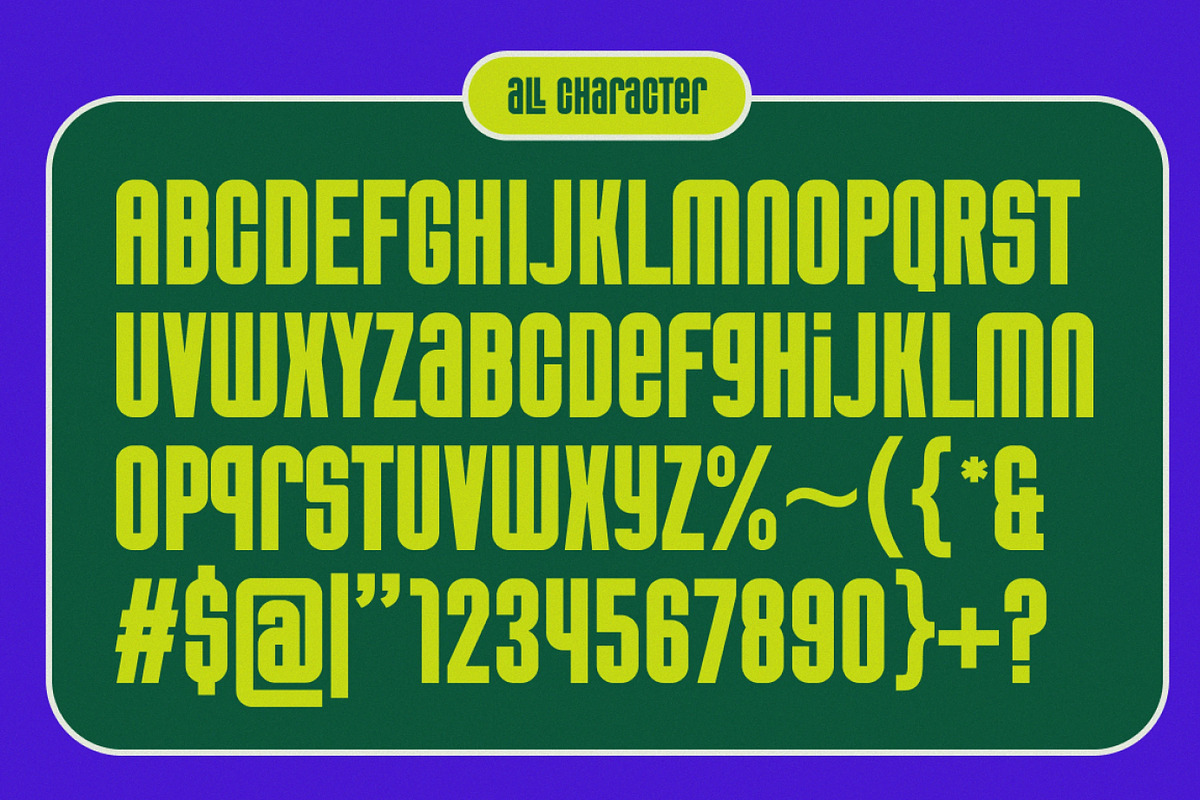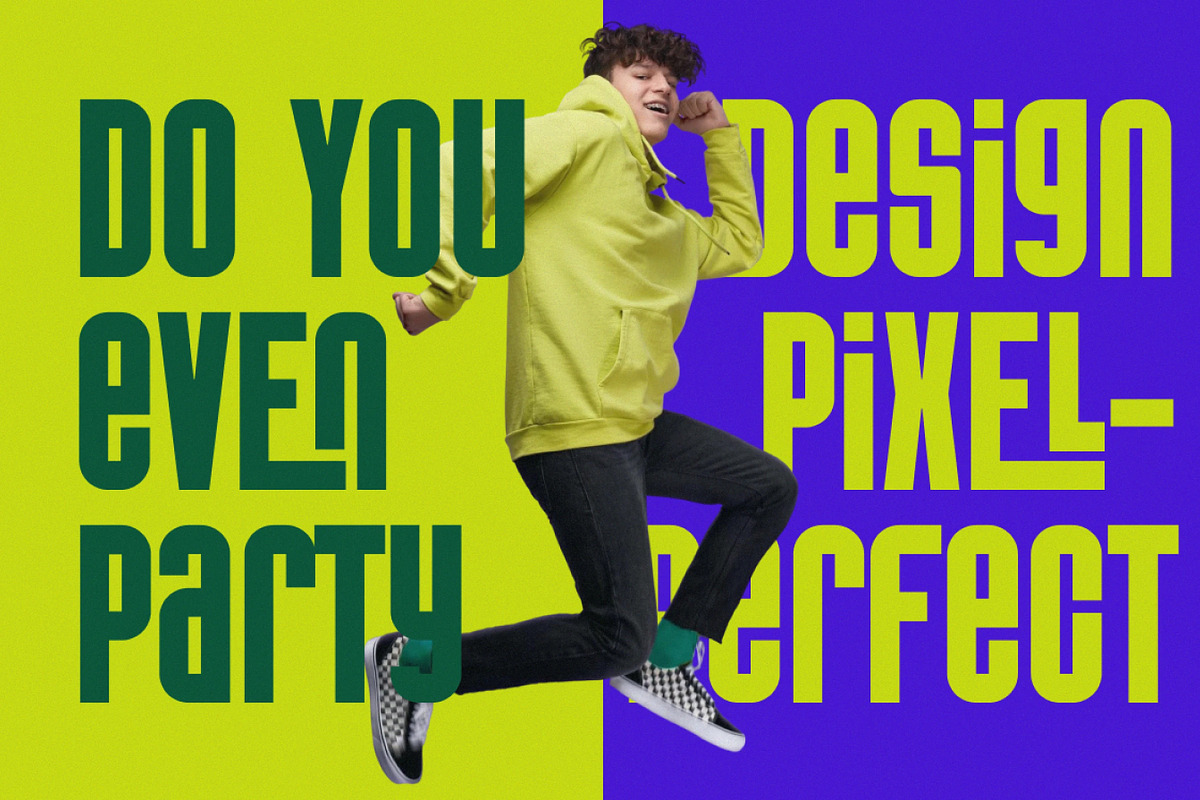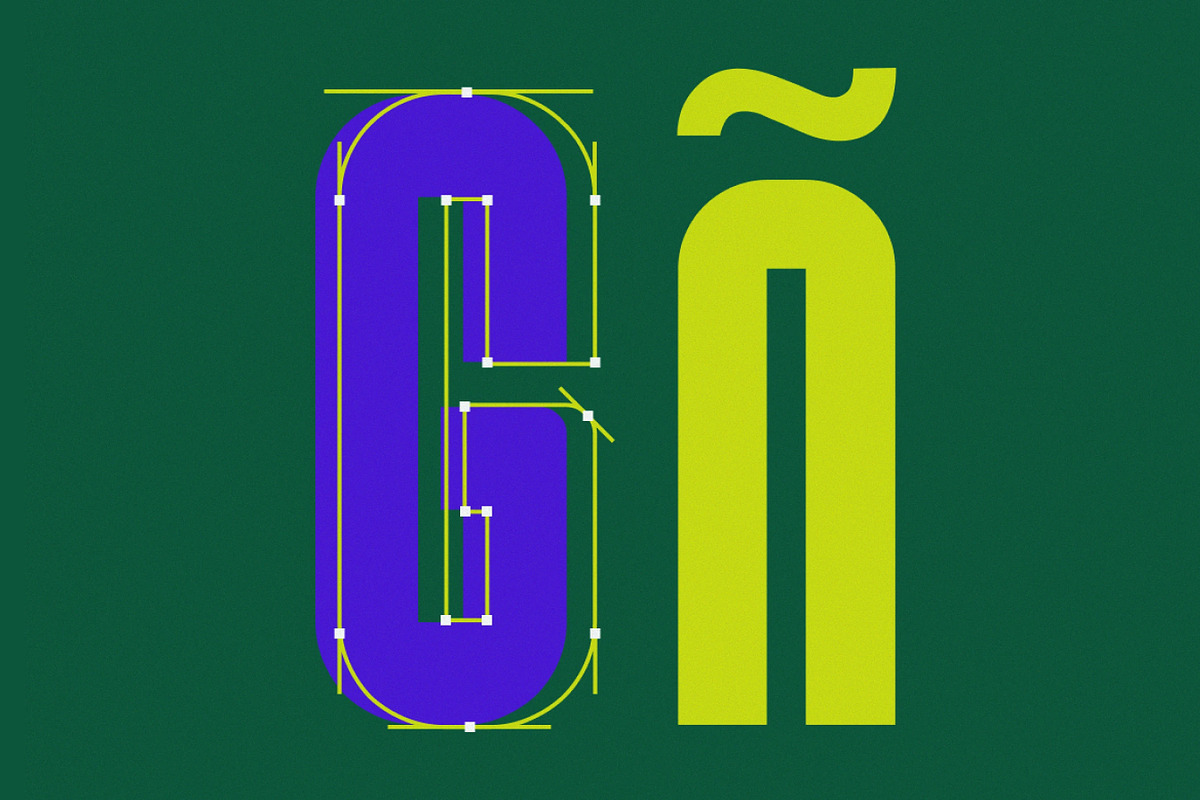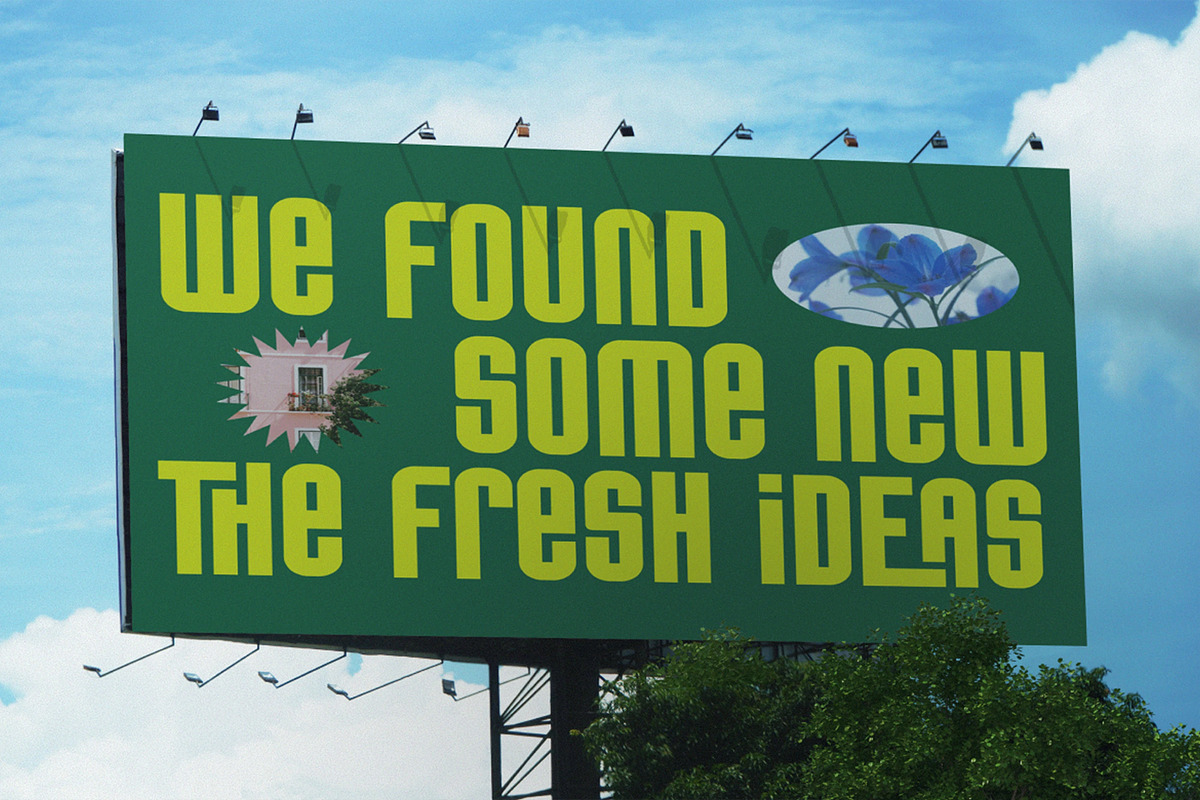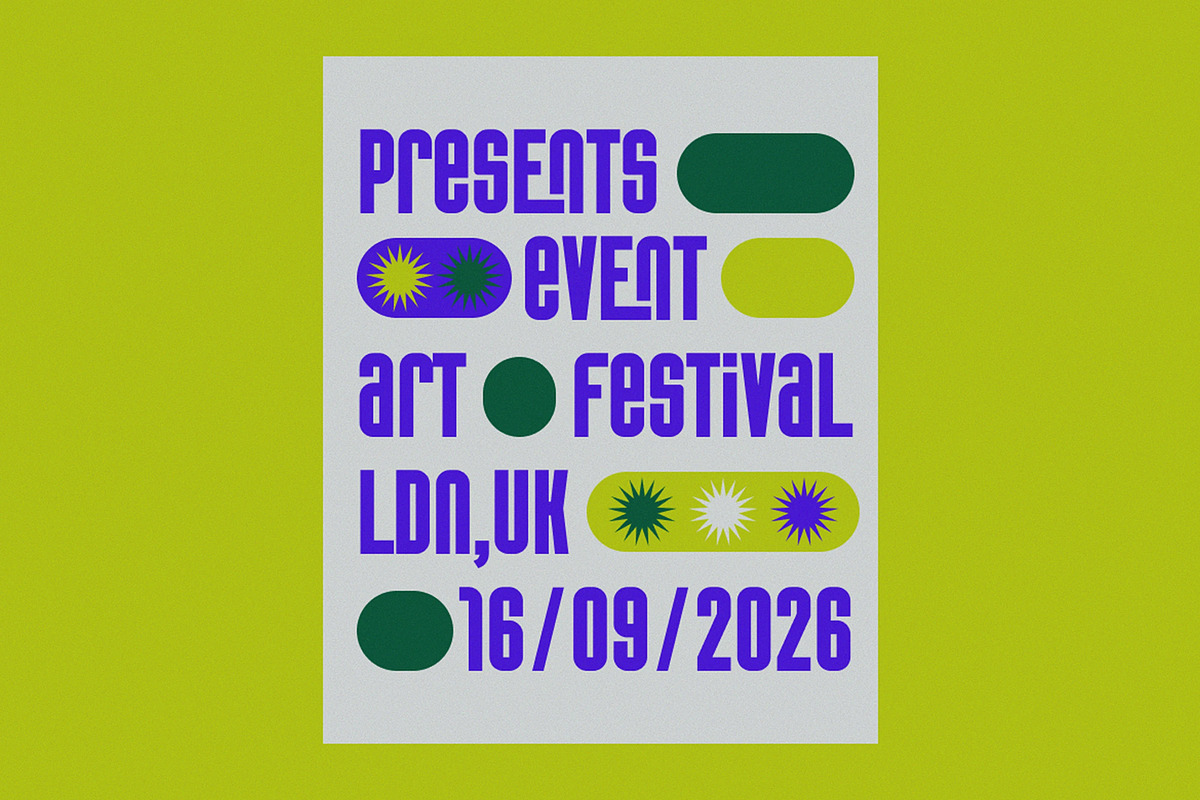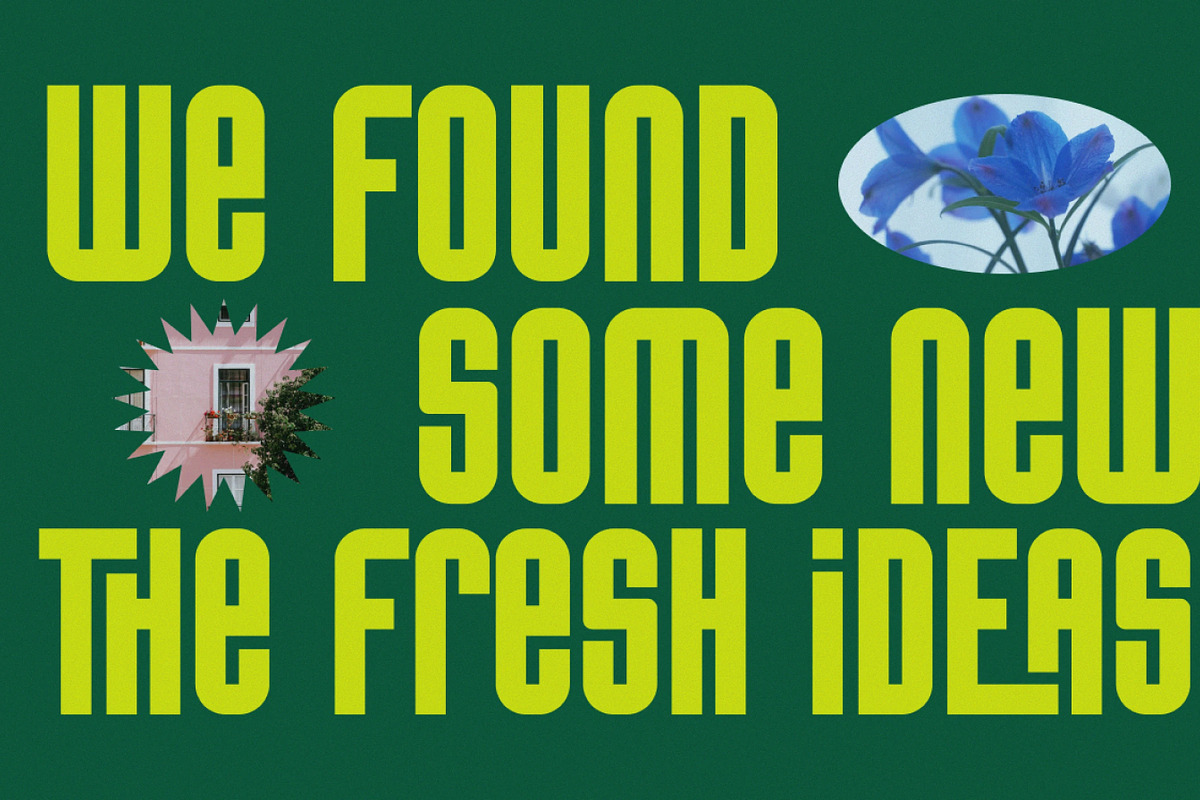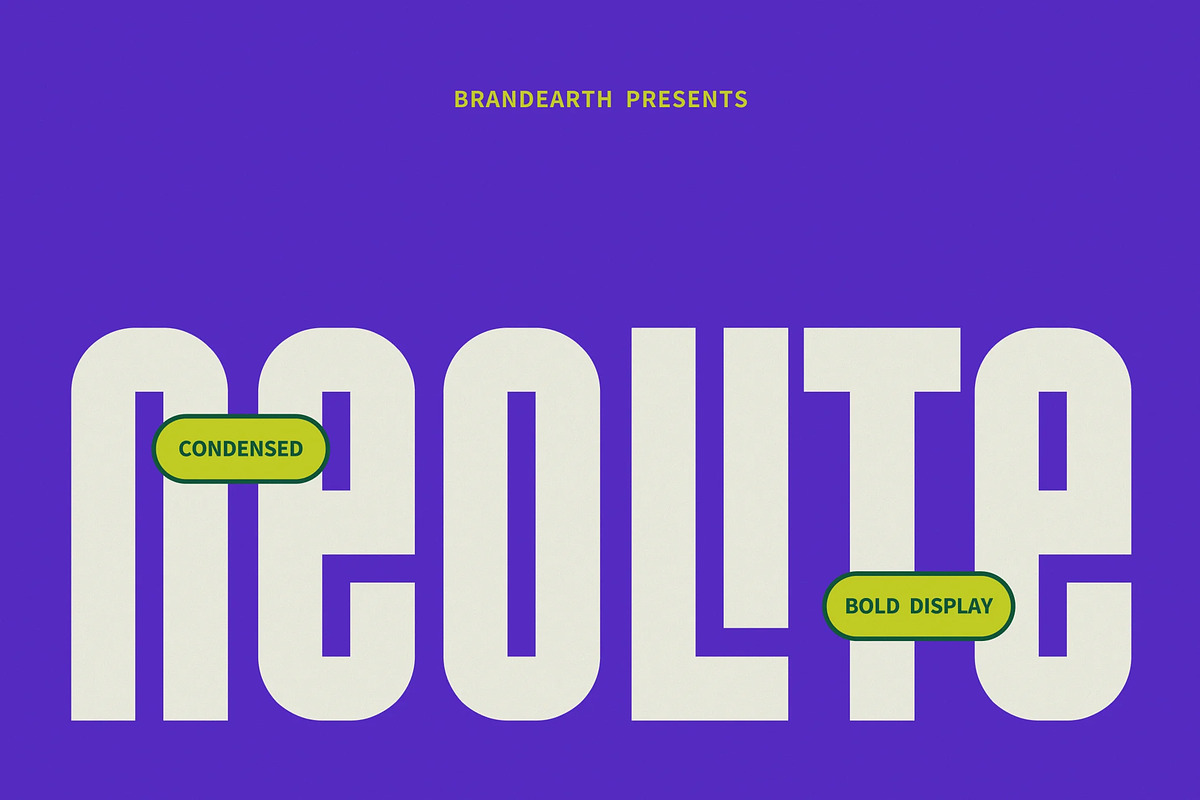
Neolite - Bold Condensed Display
Neolite is a bold, modular geometric display typeface built for maximum visual impact. Featuring rounded corners, tall condensed proportions, and a confident heavyweight structure, it captures a strong retro-futuristic and playful digital energy. The design feels modern and tech-forward, yet rooted in nostalgic Y2K aesthetics—perfect for brands that want to make a statement rather than whisper one.
The letterforms in Neolite are built with tightly condensed proportions, thick geometric strokes, and pixel-perfect precision that give the typeface a powerful, architectural presence. Its bold weight and streamlined structure create a rhythm that feels punchy, energetic, and unapologetically graphic—making it ideal for headlines, event posters, streetwear branding, and bold editorial layouts.
With its high-contrast, space-efficient design, Neolite bridges the gap between raw digital energy and refined structure. Its vibrant, neon-ready forms and rounded geometric character offer striking visual density without sacrificing legibility—making it ideal for youth-focused branding, digital art exhibitions, sports and tech identities, and campaigns that need to grab attention fast.
Main Features
Condensed & Bold Display Cuts
Suitable For: branding, event posters, logos, packaging, streetwear apparel, youth-focused campaigns, digital art exhibitions, social media content, sports team identities, app icons, editorial headlines, album covers, and bold tech-forward marketing.